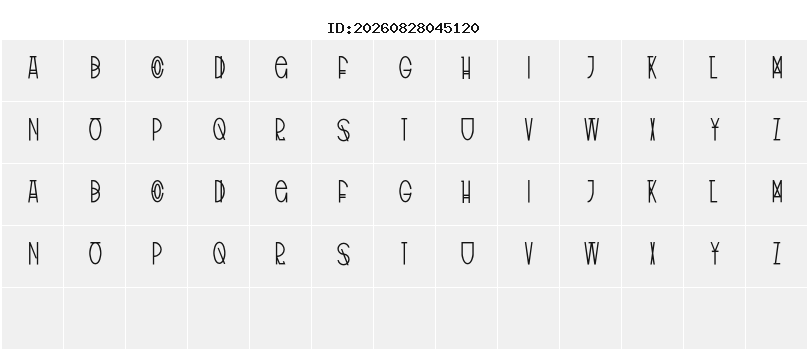
Tribal Type Preview
• Font Name: Tribal Type
• Full Font Name: TribalType-Regular
• Designer: =^_^=
About Tribal Type.otf
Tribal Type.otf is a modern, elegant sans-serif font designed for ultimate readability and visual harmony. Perfect for branding, headlines, web design, and print materials.